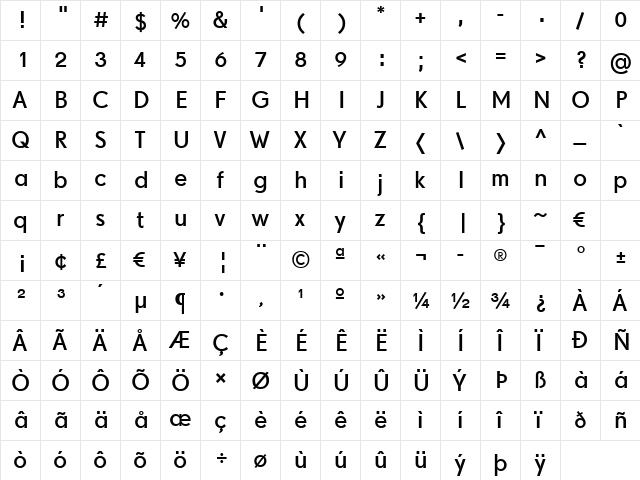
Drescher Grotesk BT SmallSizes Regular
Design Context for Drescher Grotesk BT SmallSizes Typeface
Drescher Grotesk BT SmallSizes takes a clean, functional approach — its unadorned letterforms prioritise legibility and work reliably across screen and print environments.
Font Pairing: Works well alongside a characterful serif or display font that can carry the expressive load while Drescher Grotesk BT SmallSizes handles the functional copy.
Pro Tip: Use Drescher Grotesk BT SmallSizes for UI labels, navigation, and short-form body copy where clean legibility is the priority.